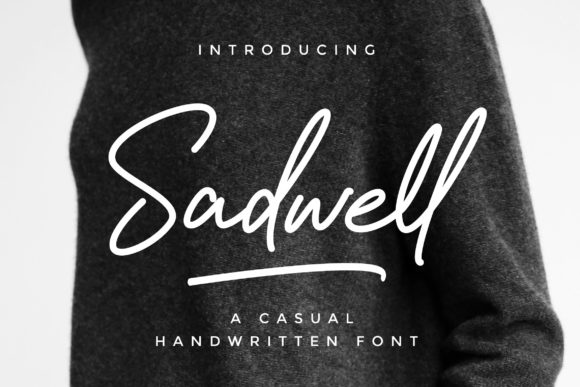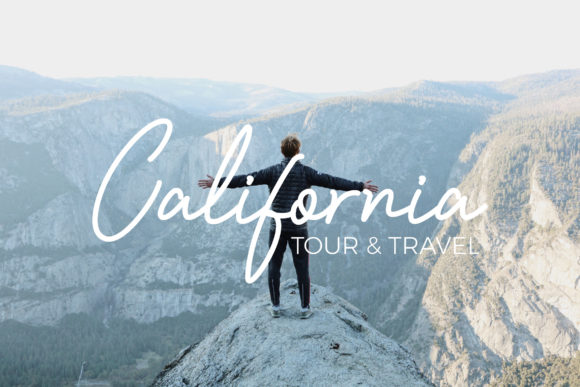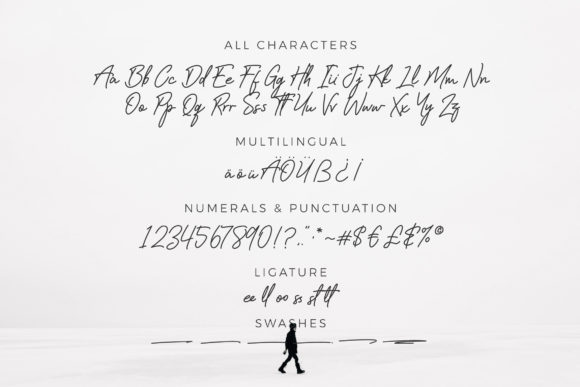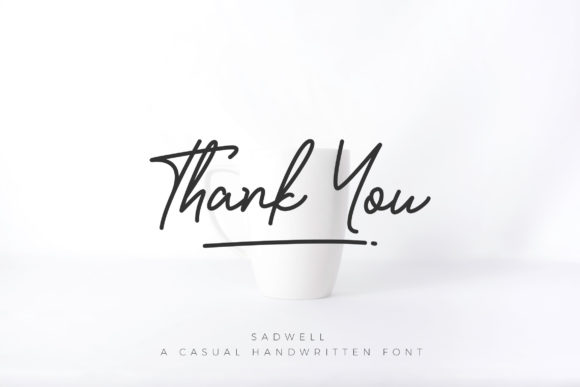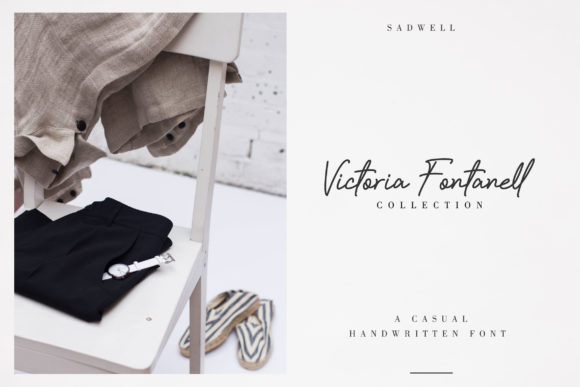
About Sadwell Font
The Sadwell is a modern and fresh script font. Its handwritten style will bring an elegant, natural, and stylish look to your designs.
It’s perfect for photography, watermarks, social media posts, advertisements, logos & branding, invitations, product designs, labels, stationery, wedding designs, product packaging, special events, and anything that needs a handwriting taste.